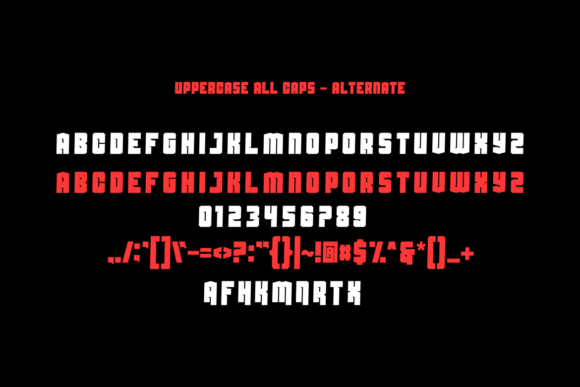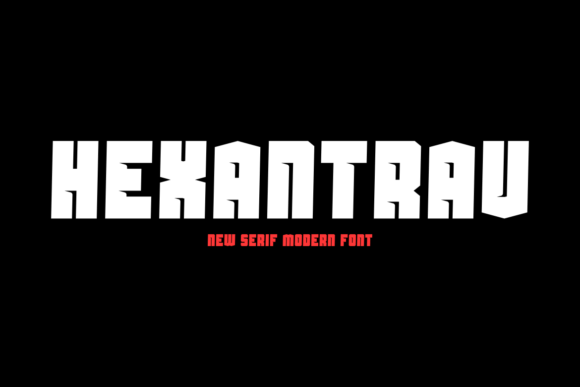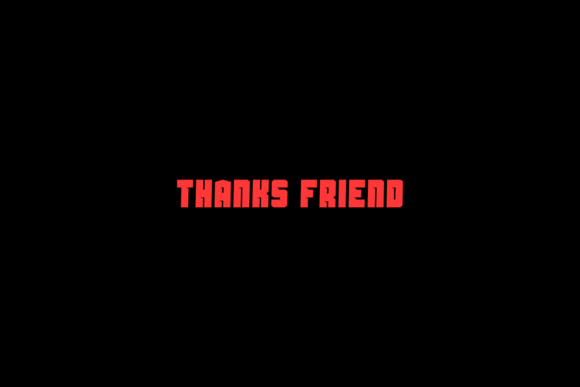
Introduction to Hexantrav Font
Do you remember that moment when you finally found the perfect font to bring your creative project to life? The one that makes your design stand out and leaves a lasting impression? For designers, that moment is priceless. It’s the culmination of hours spent searching for the perfect fit, and when you find it, everything falls into place.
That’s exactly what we’re excited to introduce to you – our new product, Hexantrav Font, a high-quality display font designed to elevate your branding projects. Whether you’re working on a logo, creating a design for t-shirt printing, or need a font for an esports project, Hexantrav Font is an excellent choice. With its transparent background and modern design, it’s a versatile resource that’s perfect for any creative endeavor.
Key Features of Hexantrav Font
- Unique blend of futuristic and geometric elements, perfect for high-quality design projects.
- Features a large character set, including uppercase and lowercase letters, numbers, and punctuation.
- Perfect for use in graphic design, digital art, and other creative projects where a modern and futuristic feel is desired.
Honest Review: Hexantrav Font
As a designer, I’m always on the lookout for high-quality design resources that can elevate my creative projects. The Hexantrav Font is a recent discovery that’s caught my attention. In this review, I’ll share my honest thoughts on its strengths and limitations.
- Unique and stylish design aesthetic that’s perfect for modern projects
- High-quality font files that are crisp and clear, even at larger font sizes
- Transparent background option that makes it easy to overlay text on images or backgrounds
One of the standout features of the Hexantrav Font is its unique design style, which is both modern and stylish. The font files are also of high quality, making it perfect for a wide range of design projects.
- Limited character set, which may not be suitable for projects that require a wide range of characters
- No bold or italic font options, which may limit its use in certain design scenarios
While the Hexantrav Font is a great addition to any design resource library, its limitations should be considered when deciding whether to use it for a specific project.
The Hexantrav Font is a solid choice for designers looking for a high-quality, free download font that’s perfect for modern creative projects. While it has some limitations, its unique design style and high-quality font files make it a great resource to have in your design toolkit.
Tips for Getting the Most Out of Hexantrav Font
For optimal results, use the Hexantrav Font in conjunction with a transparent background to create a clean and high-quality design. Experiment with different font sizes and colors to add visual interest to your creative project.
Hexantrav Font is ideal for use in graphic design projects, such as logos, brochures, and social media graphics. Its high-quality design makes it a valuable resource for designers and a free download for anyone looking to elevate their creative project.